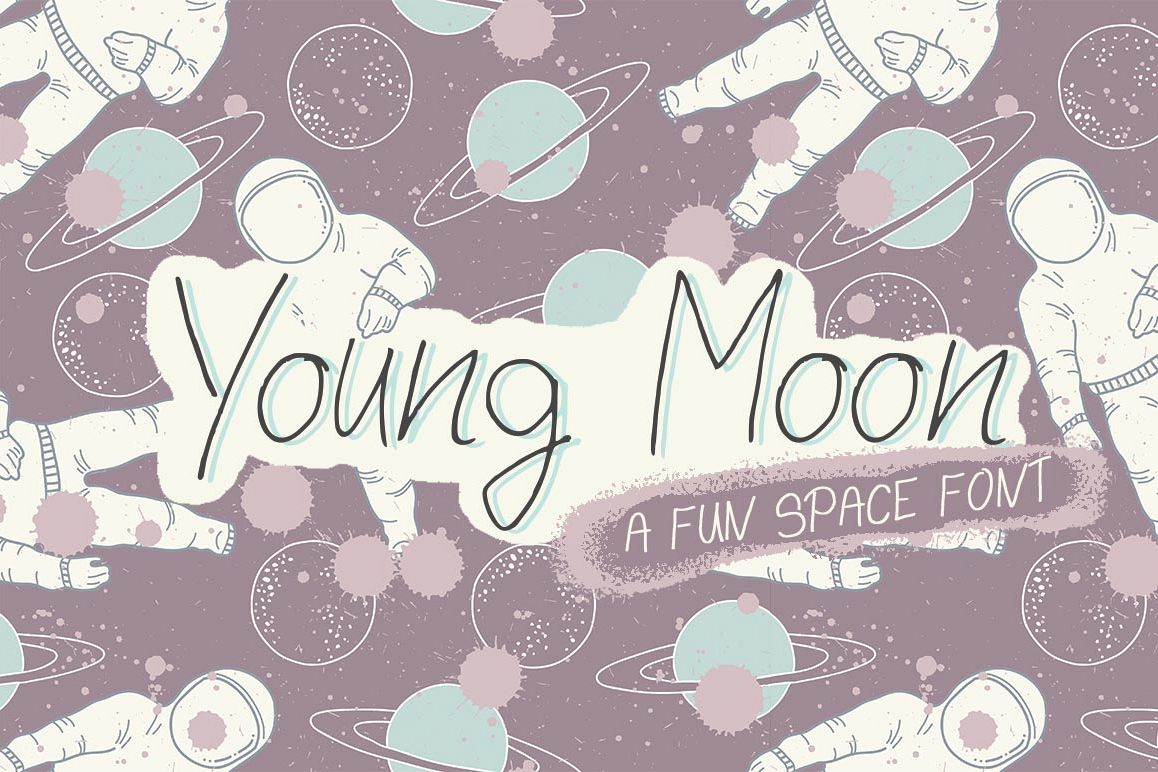
Young Moon is a fab new font from Salt & Pepper Designs for all of your out of this world work! Hand-drawn with imperfections, it can really add a little magical space dust to what you create!